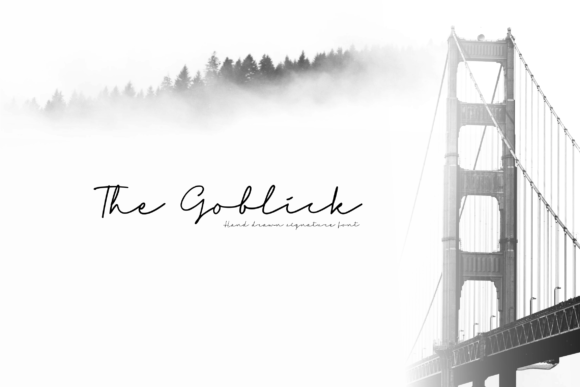
Journey into the realm of typography and unveil The Goblick Font, a script masterpiece crafted with meticulous care by allouse.studio. This font family captivates with its mesmerizing flow and delicate touch, ready to elevate your designs to new heights.
With The Goblick Font, you'll find a symphony of elegance woven into every letter, a dance of curves and flourishes that will enchant your eyes. Whether you're crafting heartfelt letters, designing invitations that spark joy, or seeking a touch of refinement for your creative pursuits, The Goblick Font is your perfect companion.
Imagine your words taking flight, carried on the wings of this font's enchanting characters. Letters dance and embrace, intertwining in a harmonious embrace. The Goblick Font breathes life into your designs, transforming them into breathtaking works of art.
Its versatility knows no bounds. From the intimate charm of personal correspondence to the grandeur of professional presentations, The Goblick Font adapts effortlessly to any project, adding a touch of sophistication and timeless beauty.
Immerse yourself in a world where every word carries weight and significance. The Goblick Font's intricate details and graceful curves command attention, leaving a lasting impression on your audience. Be it a heartfelt letter to a loved one or a captivating marketing campaign, your messages will resonate with a power that only true artistry can evoke.
With The Goblick Font, you're not just downloading a font; you're acquiring a timeless treasure, a key to unlocking the gates of creative expression. Embrace the magic of typography and let your imagination soar as you unveil the wonders that await within The Goblick Font.